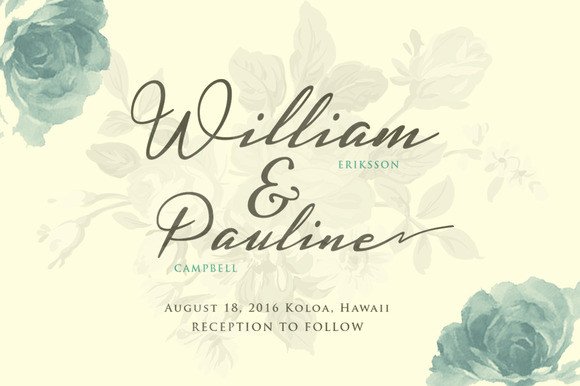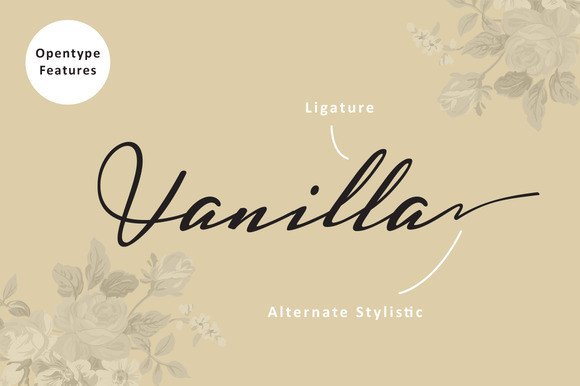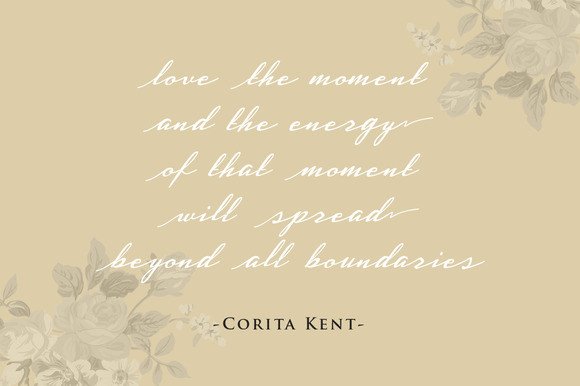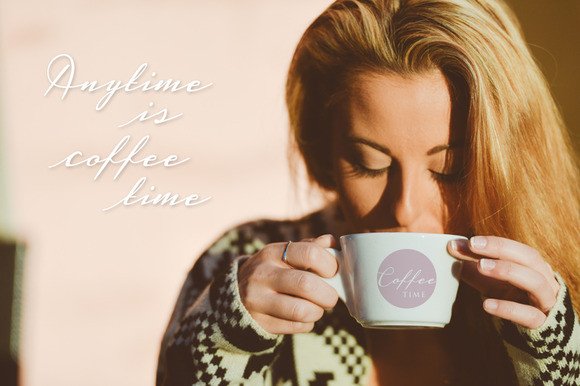
Introducing Harmonie Font: Elevate Your Designs with Elegance and Charm
Are you a designer or crafter looking for a font that can add a touch of sophistication and reliability to your work? Look no further than Harmonie Font, a stunning script font that is sure to elevate your designs to the next level. With its unique blend of slight inkiness and boldness, Harmonie Font is the perfect choice for displays and headlines that demand attention.
The Characteristics of Harmonie Font
Harmonie Font is a beautiful script font that boasts a range of characteristics that make it ideal for designers and crafters. Its slight inkiness gives it a organic, hand-crafted feel that is perfect for adding a touch of personality to your designs. At the same time, its boldness ensures that your text stands out and grabs attention. Whether you’re looking to create a statement piece or simply want to add some visual interest to your work, Harmonie Font is the perfect choice.
Why Choose Harmonie Font?
So why should you choose Harmonie Font for your design projects? Here are just a few reasons why this font stands out from the crowd:
- Elegant and sophisticated: Harmonie Font has a refined, elegant feel that is perfect for high-end designs and luxury brands.
- Versatile: Whether you’re creating a logo, brochure, or social media graphic, Harmonie Font is versatile enough to work in a variety of contexts.
- Easy to read: Despite its boldness, Harmonie Font is surprisingly easy to read, making it perfect for headlines and displays.
- Unique: With its subtle inkiness and distinctive character, Harmonie Font is sure to set your designs apart from the crowd.
How to Use Harmonie Font in Your Designs
Harmonie Font is incredibly easy to use, even if you’re new to font design. Here are a few tips to get you started:
- Pair it with a sans-serif font: For a classic, timeless look, try pairing Harmonie Font with a clean sans-serif font.
- Use it for headlines: Harmonie Font is perfect for headlines and titles, where its boldness and elegance can really shine.
- Experiment with colors: Harmonie Font looks great in a range of colors, from rich jewel tones to bold brights.
- Don’t be afraid to get creative: With its unique character and versatility, Harmonie Font is the perfect choice for designers who like to push the boundaries.
Design Inspiration with Harmonie Font
Still not sure how to use Harmonie Font in your designs? Here are a few inspiring examples to get you started:
- Luxury branding: Use Harmonie Font to create a sophisticated logo or brand identity that exudes elegance and refinement.
- Wedding designs: Harmonie Font is perfect for wedding invitations, programs, and other stationery that demands a touch of romance and whimsy.
- Packaging design: Add a touch of personality to your product packaging with Harmonie Font, which looks great on labels, tags, and other packaging materials.